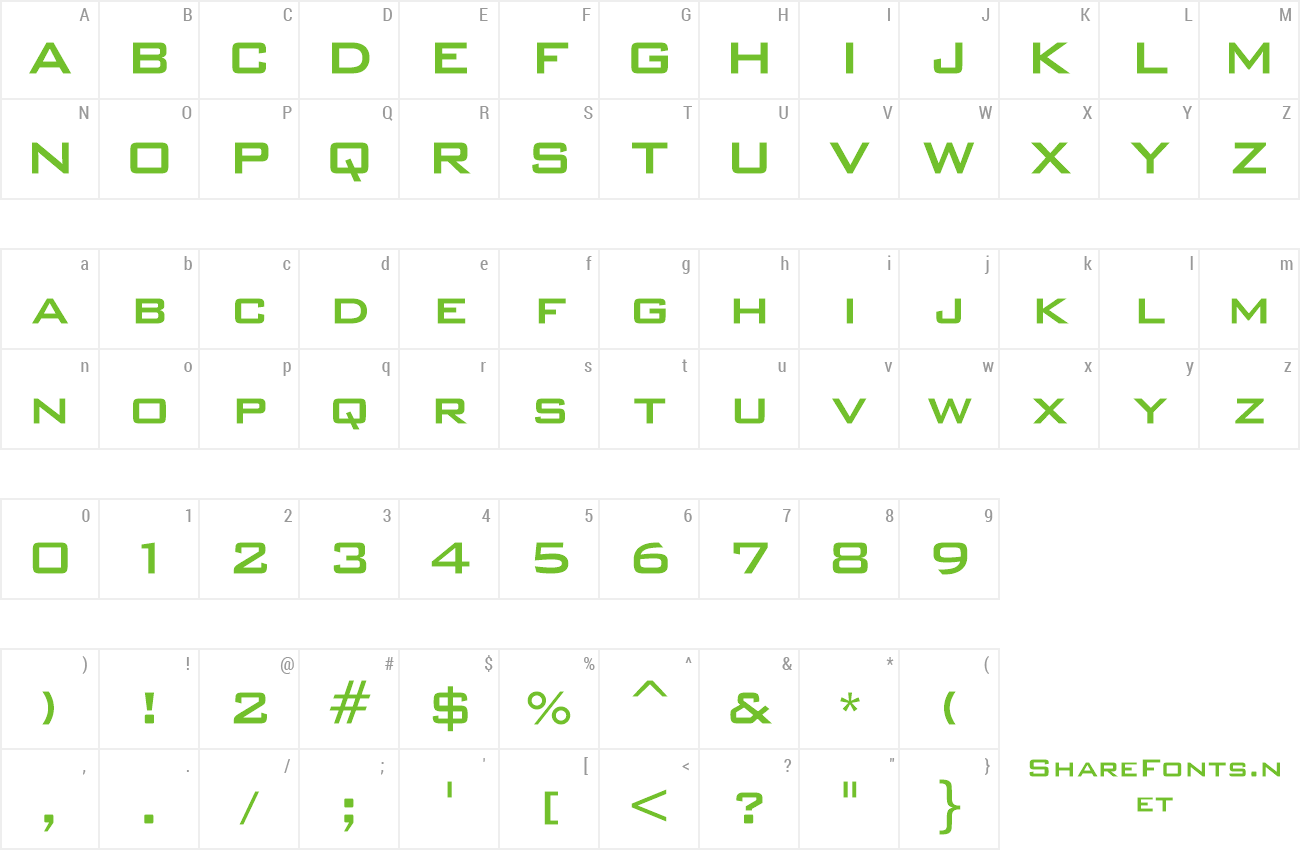
Discover the free bank gothic bt medium font at free font download ! Installable on pc, mac, linux, ios, and android platforms. Download bank gothic font, a rectilinear geometric typeface created by american type pioneers in 1930. Installable on pc, mac, linux, ios, and android platforms. Discover the free bank gothic medium font at free font download !
Download bank gothic medium bt font for free from fontsplace, a website that offers free and premium fonts. Installable on pc, mac, linux, ios, and android platforms. Discover the free bank gothic bt medium font at free font download ! Download bank gothic font, a rectilinear geometric typeface created by american type pioneers in 1930. See the font characters and.
Bank Gothic Medium Font
Discover the free bank gothic bt medium font at free font download ! Installable on pc, mac, linux, ios, and android platforms. Download bank gothic medium bt font for free from fontsplace, a website that offers free and premium fonts. Download bank gothic font, a rectilinear geometric typeface created by american type pioneers in 1930. Discover the free bank gothic.
Download bank gothic font, a rectilinear geometric typeface created by american type pioneers in 1930.